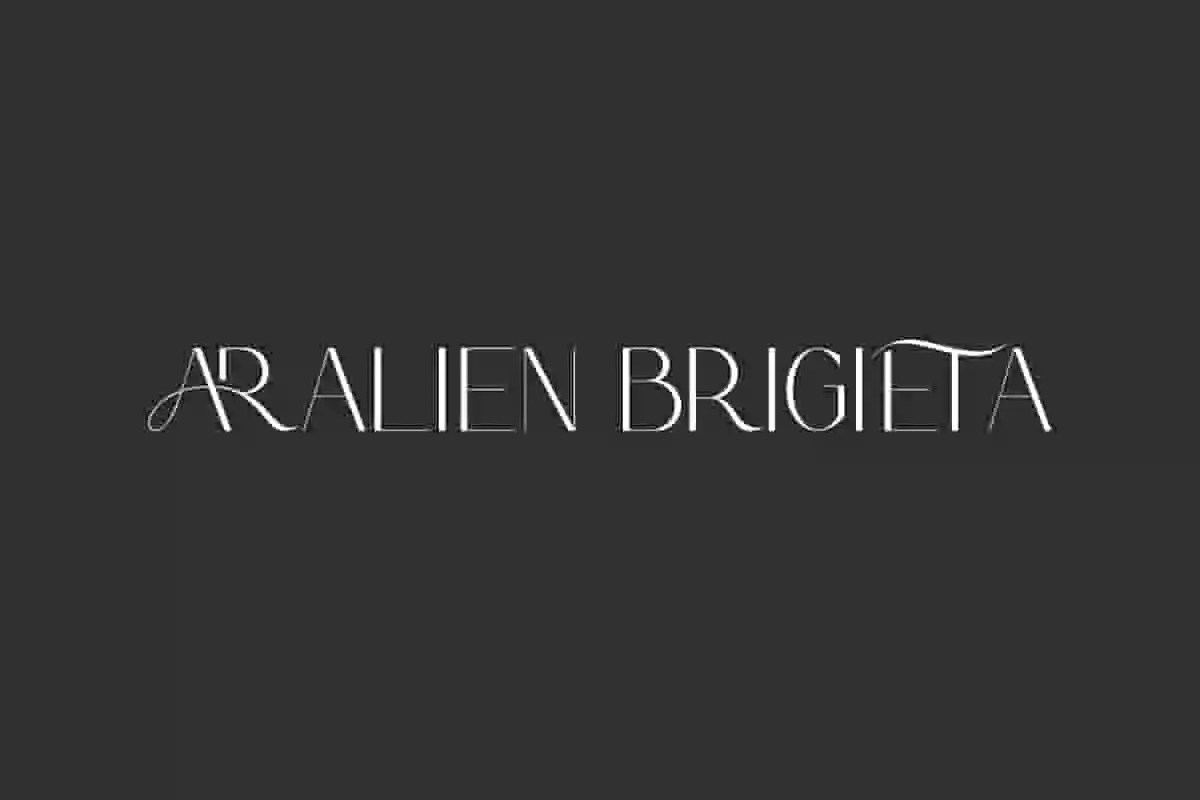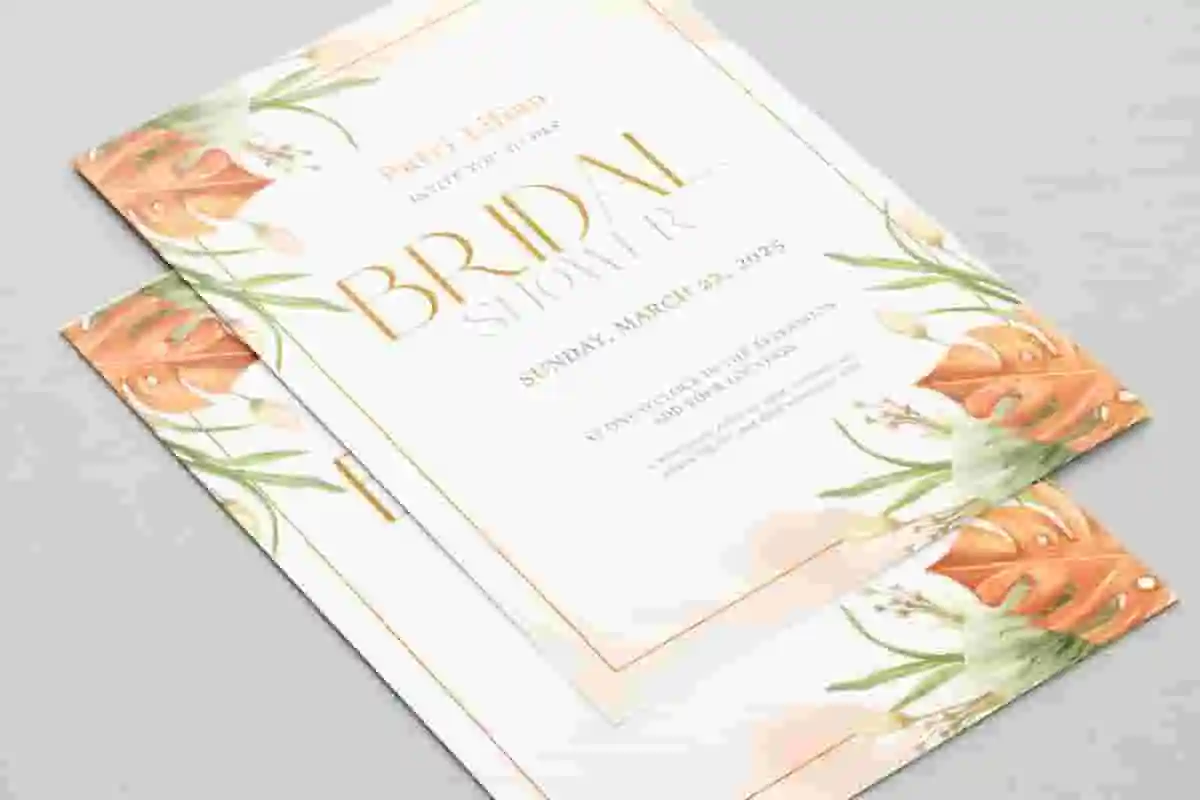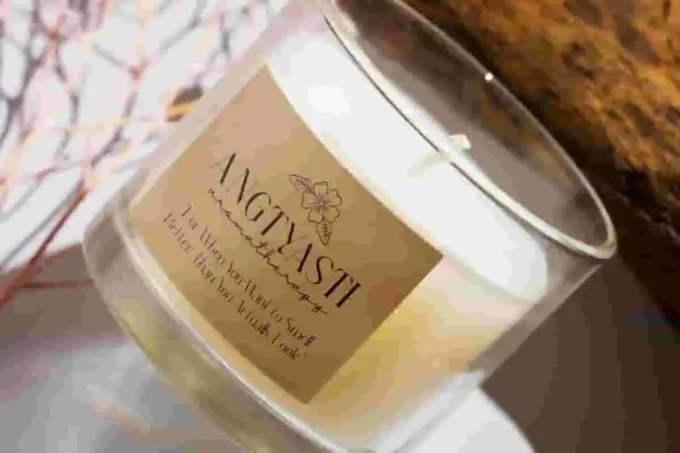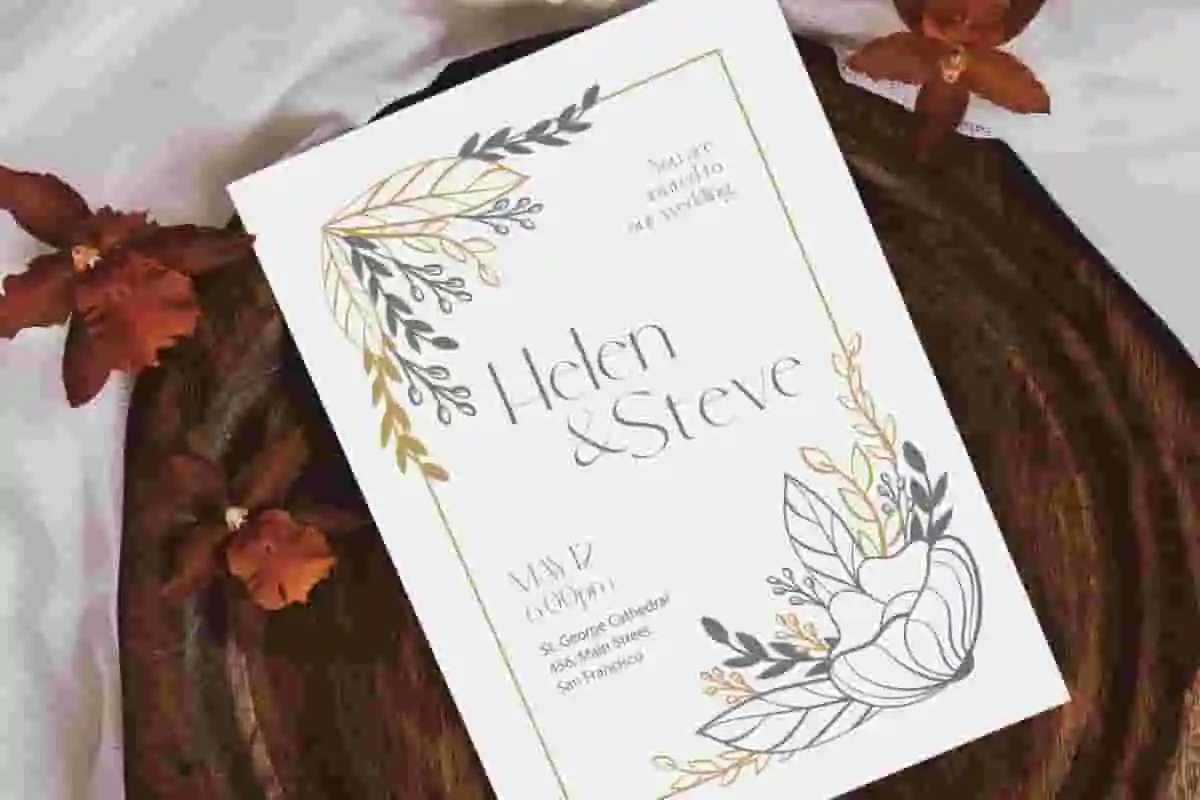
Aralien Brigieta Font is an elegant stunning classic sans serif font with a modern & vintage decorative elements. The sleek letterforms and artistic curve variations give an exclusive impression. This font will be perfect for any projects, can be used for advertisement, brand image, custom design, invitation, label, layout design, quotes, stationery, template design, website, and more!
Aralien Brigieta Font includes full set of Uppercase and Lowercase Basic Characters, Numerals, Punctuation, Symbol, and Ligature character. Making it a perfect choice for a variety of fields, such as accessories and jewelry, beauty product, event or wedding organizer, fashion, florist, furniture, real estate, spa salon, etc.